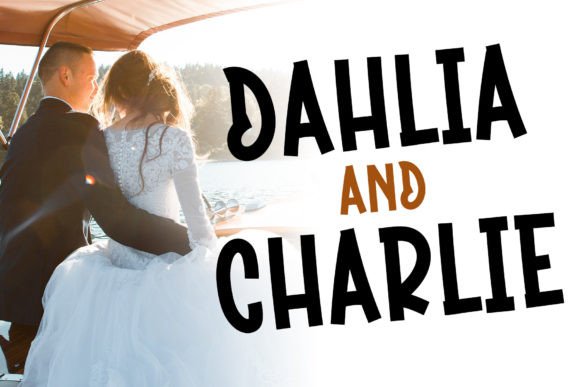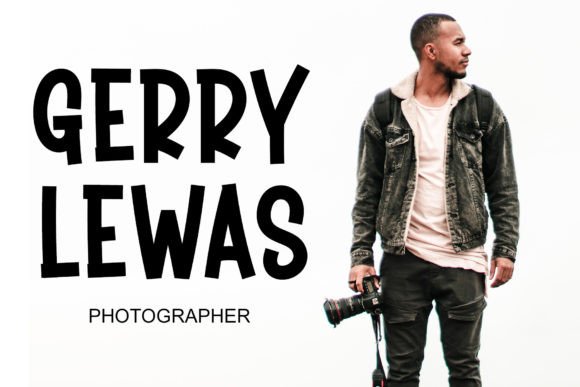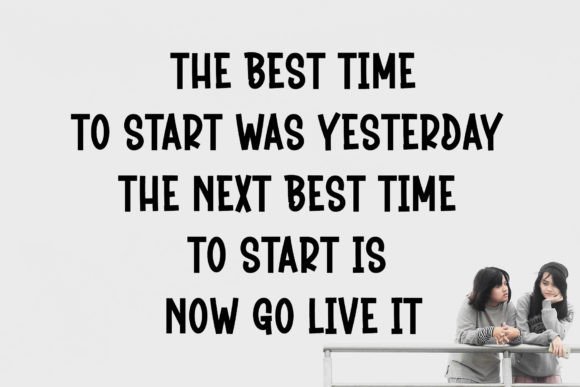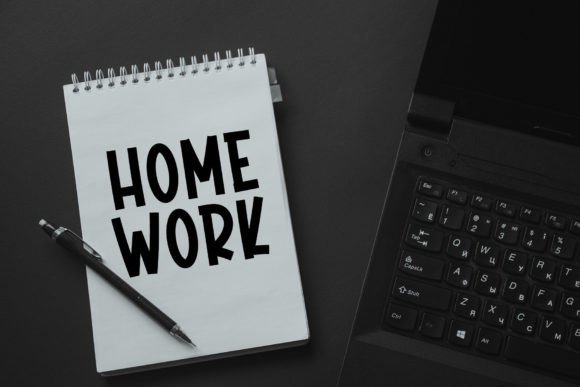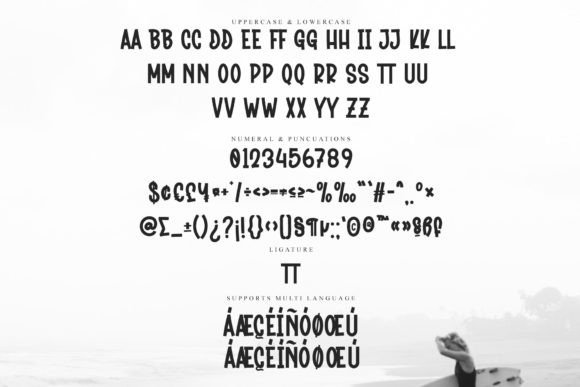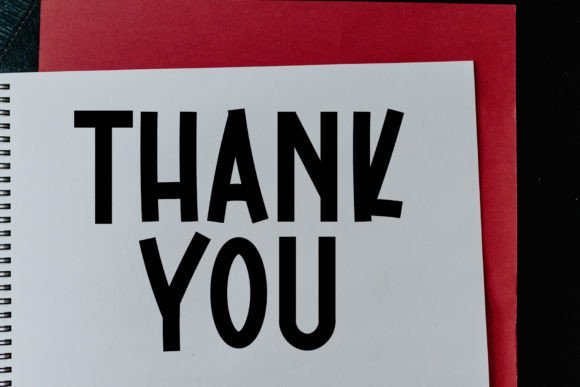
Discover the Charm of Delight Loving Font: A Simple yet Versatile Design Essential
In the world of typography, fonts play a crucial role in conveying messages, expressing emotions, and creating a lasting impression. For designers and crafters seeking a font that embodies simplicity, readability, and versatility, Delight Loving Font is an excellent choice. This article will delve into the characteristics, benefits, and applications of Delight Loving Font, exploring how it can elevate your design projects.
What is Delight Loving Font?
Delight Loving Font is a simple handwritten font that exudes a sense of warmth and approachability. Its straightforward and minimalist sans-serif design makes it an ideal choice for a wide range of applications. The font’s clean lines, unadorned letterforms, and balanced spacing ensure excellent readability, even at smaller font sizes.
Key Characteristics of Delight Loving Font
- Simple and Handwritten: Delight Loving Font boasts a simple, handwritten aesthetic that adds a touch of personality to any design.
- Minimalist Sans-Serif: The font’s sans-serif design ensures a clean and uncluttered look, making it perfect for modern designs.
- High Readability: The font’s clear lines, balanced spacing, and open letterforms guarantee excellent readability, even in smaller font sizes.
- Versatile: Delight Loving Font is suitable for various design projects, from branding and editorial design to web design and crafting.
Benefits of Using Delight Loving Font
Delight Loving Font offers several benefits that make it an attractive choice for designers and crafters:
- Ease of Use: The font’s simplicity and clarity make it easy to use, even for those without extensive design experience.
- Flexibility: Delight Loving Font can be used in various design contexts, from digital platforms to print materials.
- Emotional Connection: The font’s handwritten aesthetic creates an emotional connection with the audience, making it perfect for designs that require a personal touch.
- Timeless Appeal: The font’s minimalist design ensures a timeless appeal, making it a valuable addition to any design library.
Applications of Delight Loving Font
Delight Loving Font is a versatile design essential that can be used in a variety of applications:
- Branding: Use Delight Loving Font to create a unique and memorable brand identity that resonates with your audience.
- Editorial Design: The font’s readability and elegance make it perfect for editorial designs, such as magazines, newspapers, and books.
- Web Design: Delight Loving Font is an excellent choice for web design, ensuring a clean and user-friendly interface that enhances the user experience.
- Crafting: The font’s playful and creative vibe makes it suitable for various crafting projects, such as handmade cards, invitations, and DIY tutorials.
Tips for Using Delight Loving Font Effectively
To get the most out of Delight Loving Font, consider the following tips:
- Pair with Other Fonts: Combine Delight Loving Font with other fonts to create a unique and visually appealing typography.
- Experiment with Colors: Play with different colors to add personality and depth to your design.
- Adjust Font Sizes: Experiment with different font sizes to create visual hierarchy and emphasize important elements.
In conclusion, Delight Loving Font is a simple yet versatile design essential that offers a range of benefits and applications. Its simplicity, readability, and emotional connection make it an excellent choice for designers and crafters seeking to create engaging and effective designs. By incorporating Delight Loving Font into your design library, you’ll be able to create a wide range of projects that resonate with your audience.